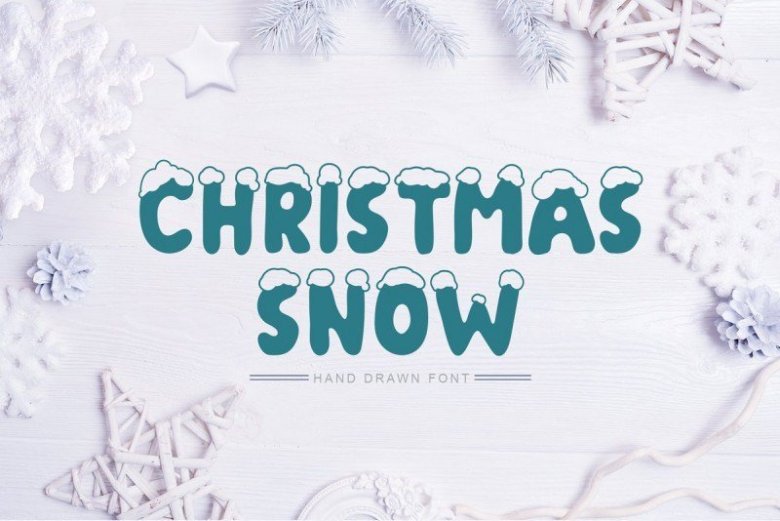
Christmas Snow Font
Winter handmade Christmas Snow Hand Drawn Font is modern display font. Christmas Snow Hand Drawn Font is beautiful instrument for designers, blogers and everybody who loves doodle scandinavian or hygge style.